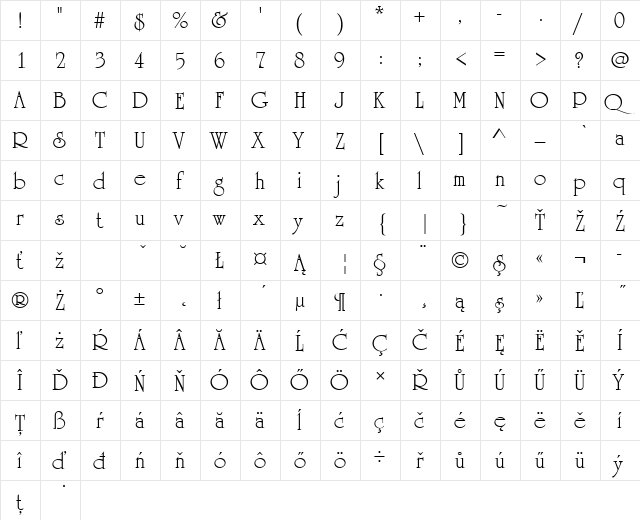
UniversityTEE Regular
Design Context for UniversityTEE Typeface
UniversityTEE takes a measured approach to typography — its balanced proportions and neutral character make it a reliable workhorse for both digital and print work.